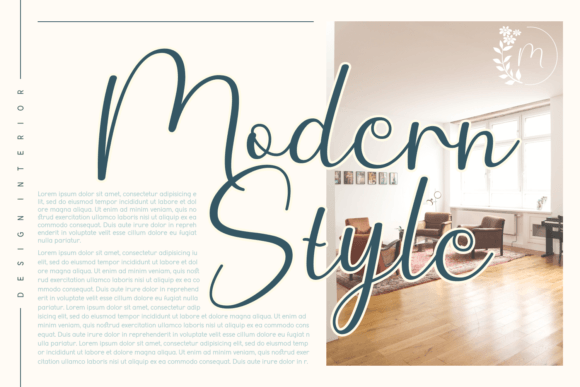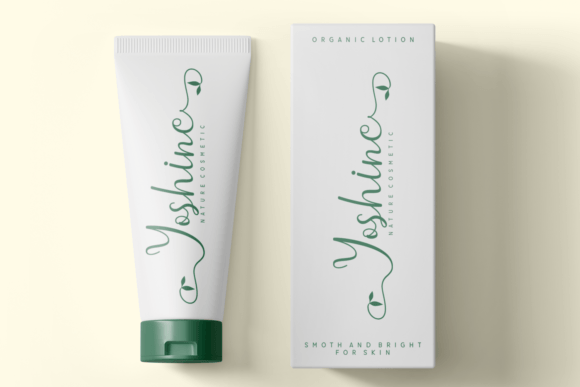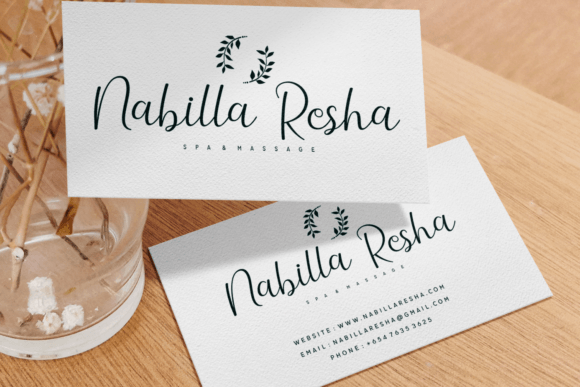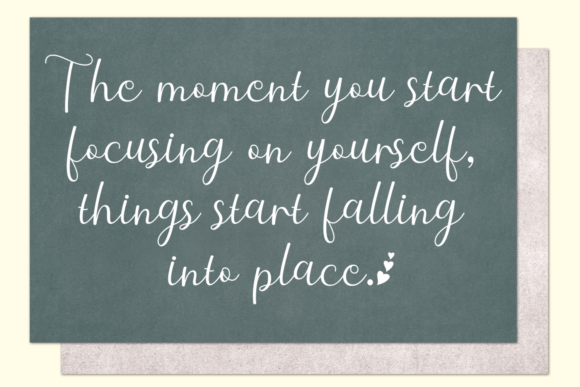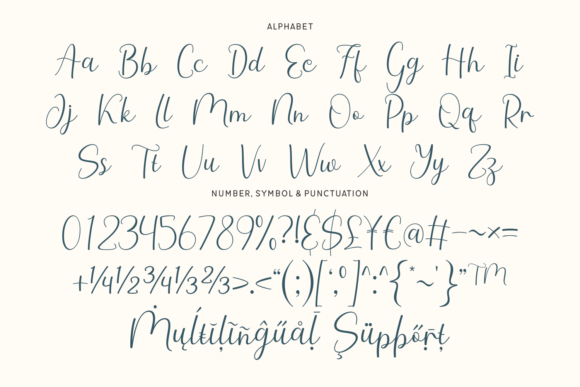
Babylie Font: Elevate Your Designs with Elegance and Sophistication
In the world of typography, a well-crafted font can make all the difference in creating visually stunning designs. For designers and crafters looking to add a touch of elegance and sophistication to their work, the Babylie font is an excellent choice. This stylish handwritten font boasts a modern look that’s perfect for creating authentic and elegant typography designs.
What is Babylie Font?
Babylie is a beautifully designed handwritten font that exudes a sense of refinement and poise. Its modern aesthetic makes it an ideal choice for a wide range of design projects, from invitations and cards to logos, quotes, and product labels. With Babylie, you can add a touch of sophistication to your designs and make them stand out from the crowd.
Key Features of Babylie Font
So, what makes Babylie font so special? Here are some of its key features:
- Stylish Handwritten Design: Babylie boasts a beautiful, handwritten design that’s perfect for creating elegant and sophisticated typography.
- Modern Look: This font has a distinctly modern aesthetic that’s sure to appeal to designers looking for a fresh and contemporary look.
- PUA Encoded: Babylie is PUA encoded, making it easy to access all the glyphs and swashes. This means you can get creative with your designs and experiment with different styles and combinations.
- Versatile: Whether you’re working on invitations, cards, logos, quotes, product labels, or any other design project, Babylie is the perfect choice.
Uses of Babylie Font
The versatility of Babylie font is one of its standout features. Here are some of the many ways you can use this beautiful typeface:
- Invitations: Create stunning wedding invitations, birthday invitations, or any other type of invitation with Babylie font.
- Cards: Design beautiful greeting cards, thank-you cards, or congratulations cards with this elegant font.
- Logos: Use Babylie font to create a sophisticated logo for your business or brand.
- Quotes: Add a touch of elegance to your quote designs with Babylie font.
- Product Labels: Create eye-catching product labels with this stylish font.
Why Choose Babylie Font?
With so many fonts available, why choose Babylie? Here are a few compelling reasons:
- Elegant and Sophisticated: Babylie font is the perfect choice for designers looking to add a touch of elegance and sophistication to their work.
- High-Quality Design: This font is beautifully designed, with a focus on detail and craftsmanship.
- Easy to Use: Babylie font is PUA encoded, making it easy to access all the glyphs and swashes.
- Versatile: This font can be used for a wide range of design projects, making it a great addition to any designer’s toolkit.
In conclusion, Babylie font is a stunning handwritten font that’s perfect for designers and crafters looking to add a touch of elegance and sophistication to their work. With its modern look, PUA encoding, and versatility, this font is sure to become a favorite in your design toolkit. Whether you’re working on invitations, cards, logos, quotes, product labels, or any other design project, Babylie font is an excellent choice.